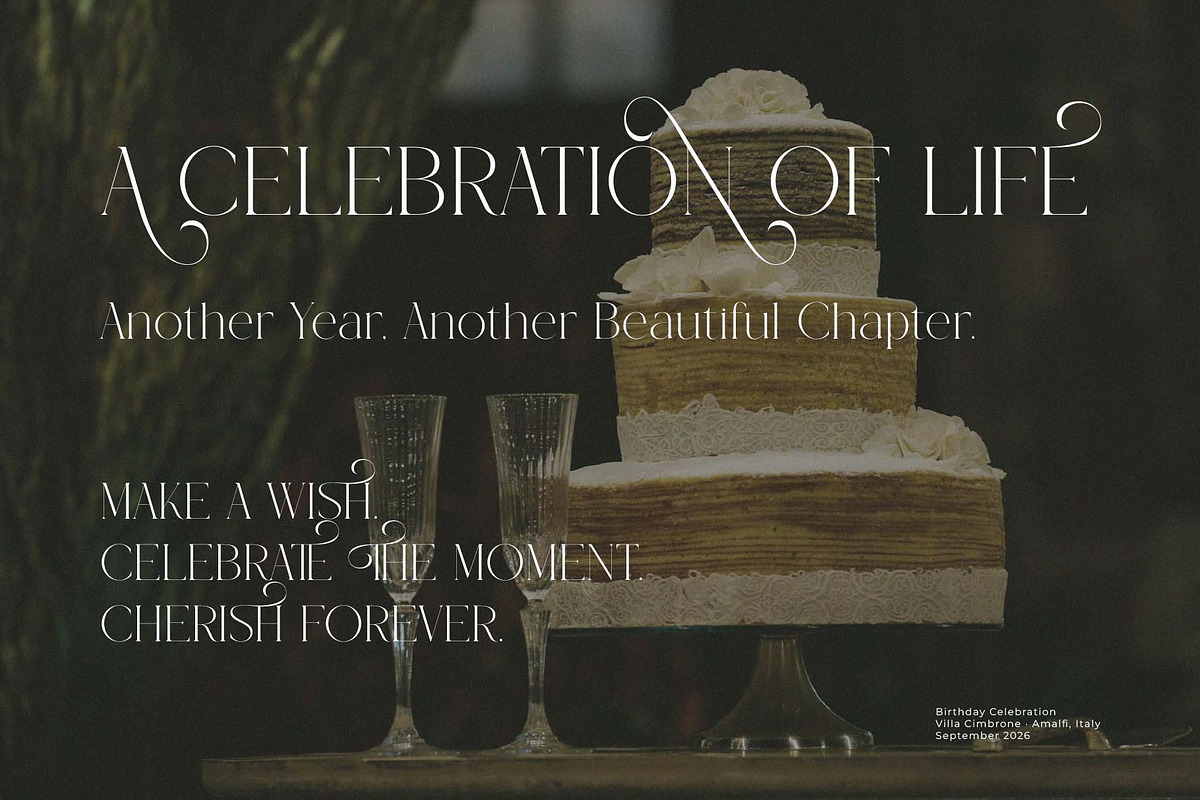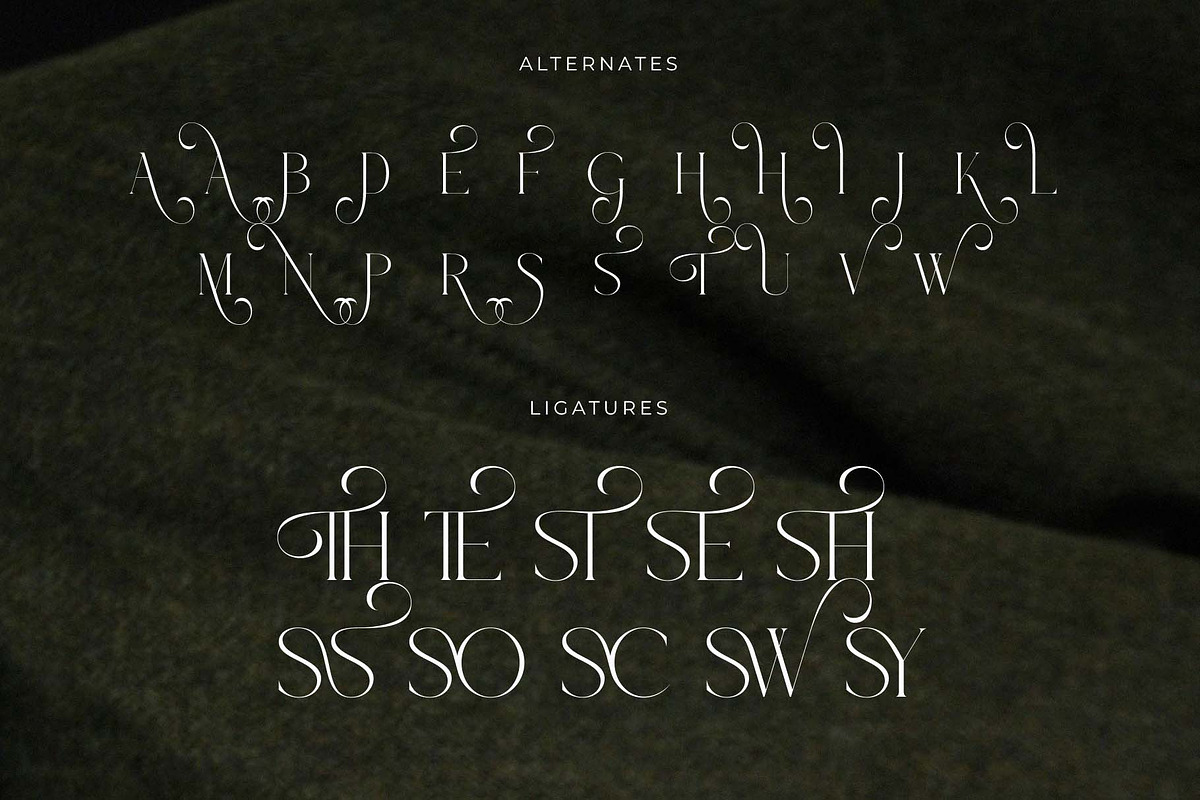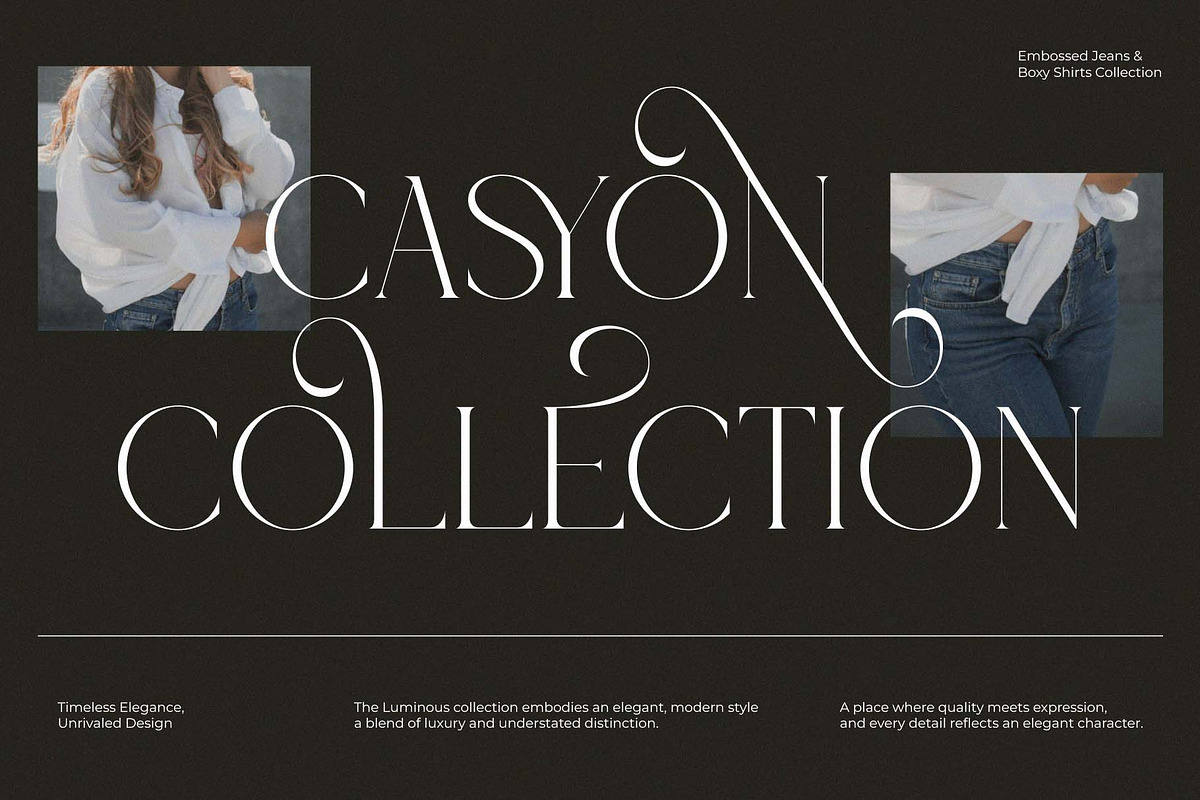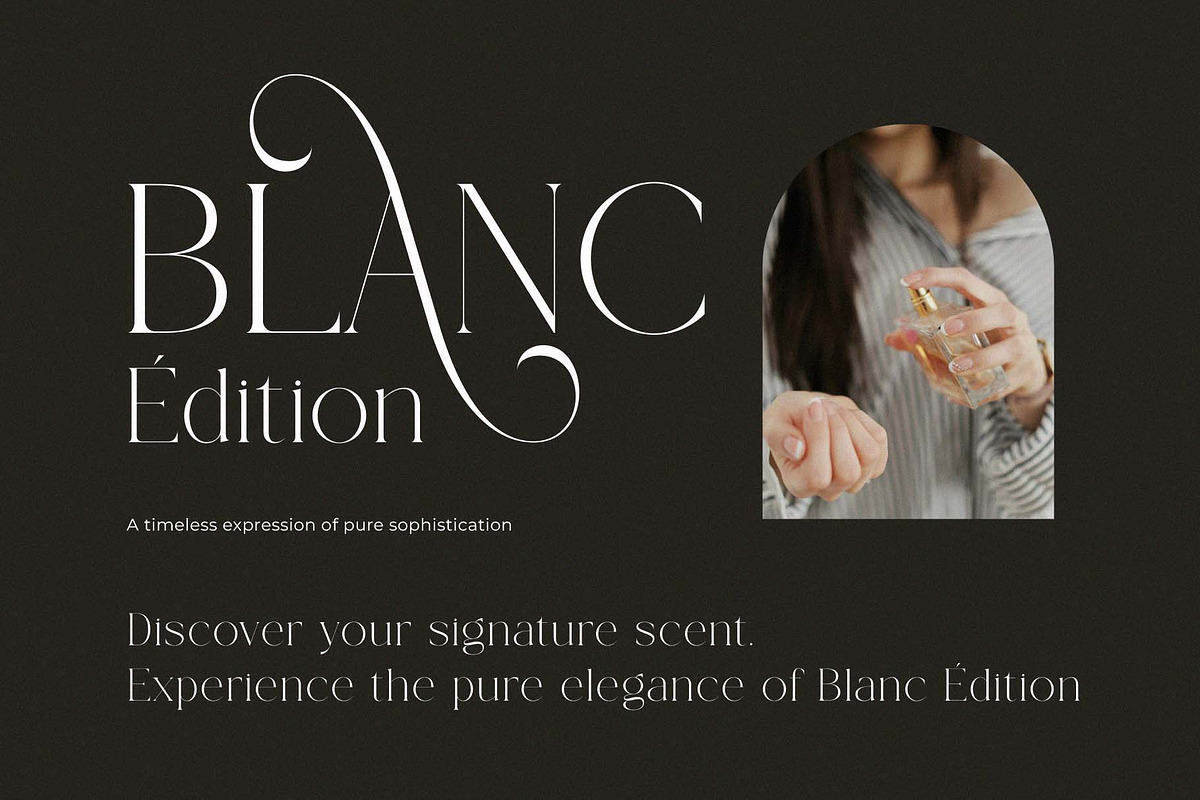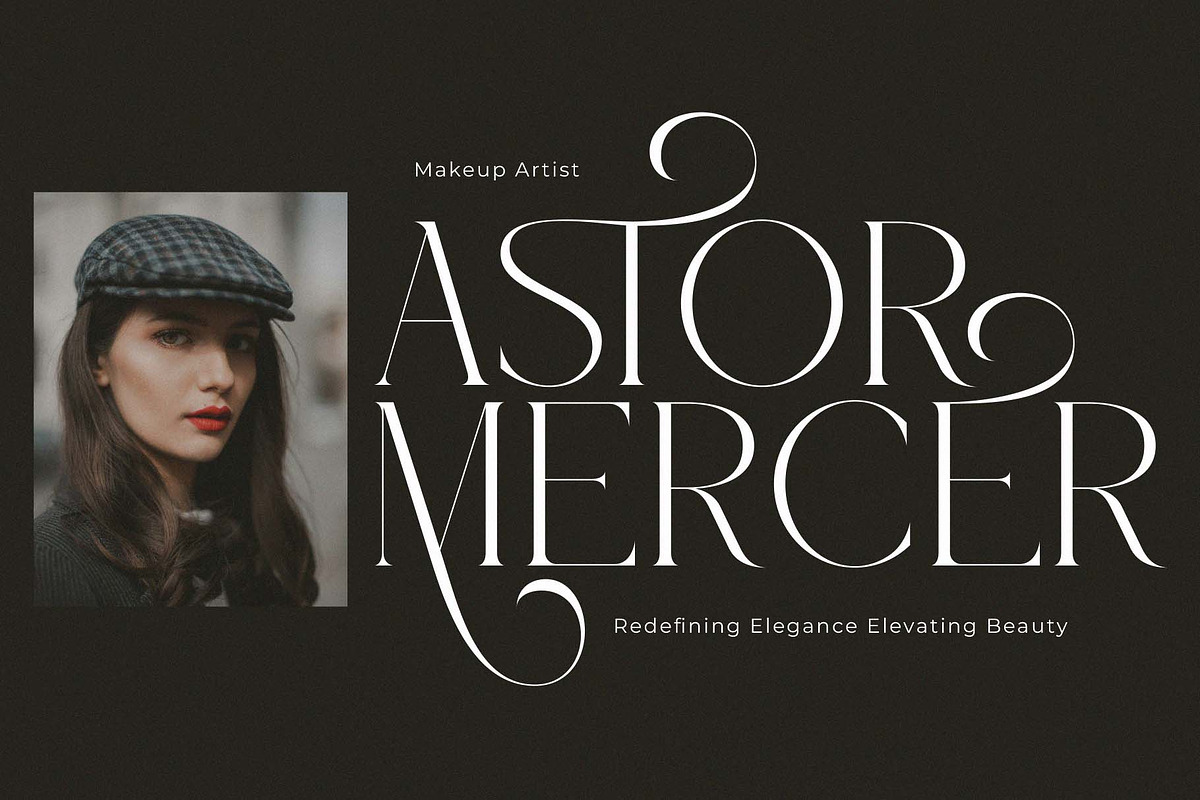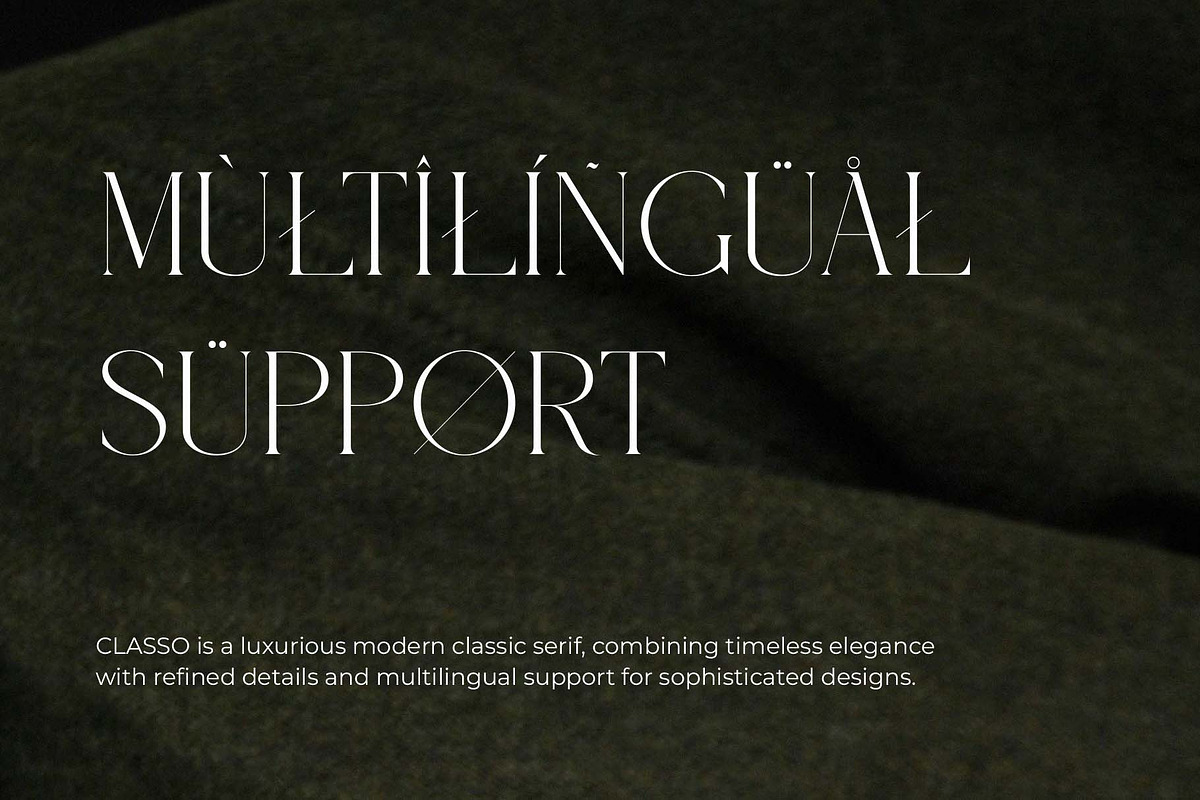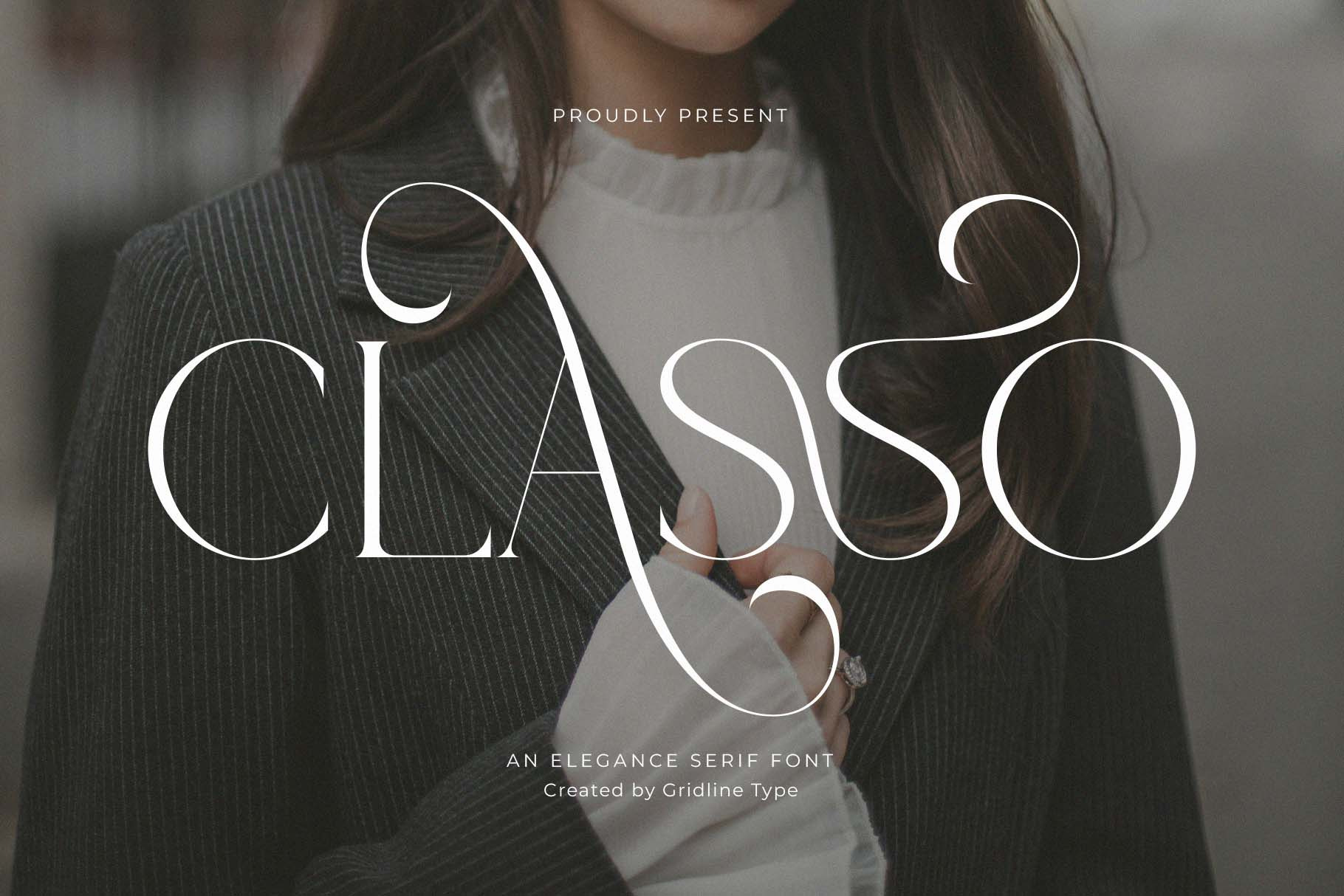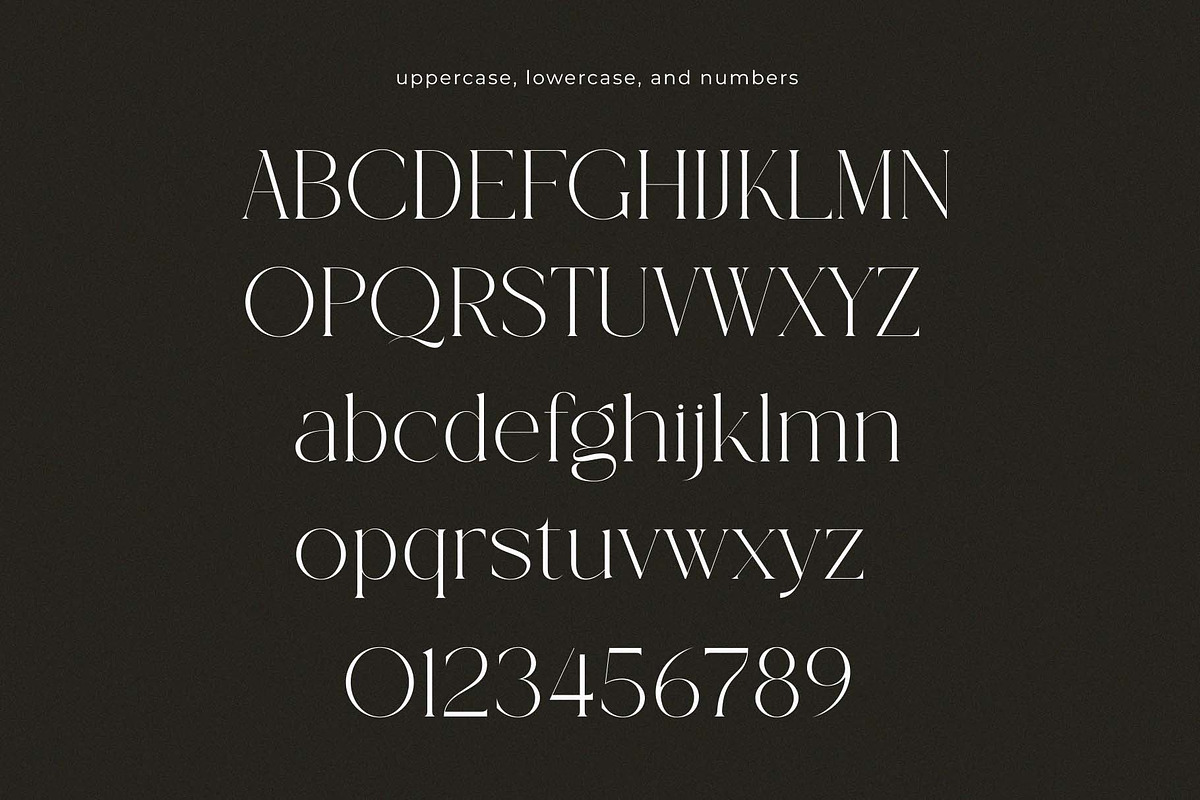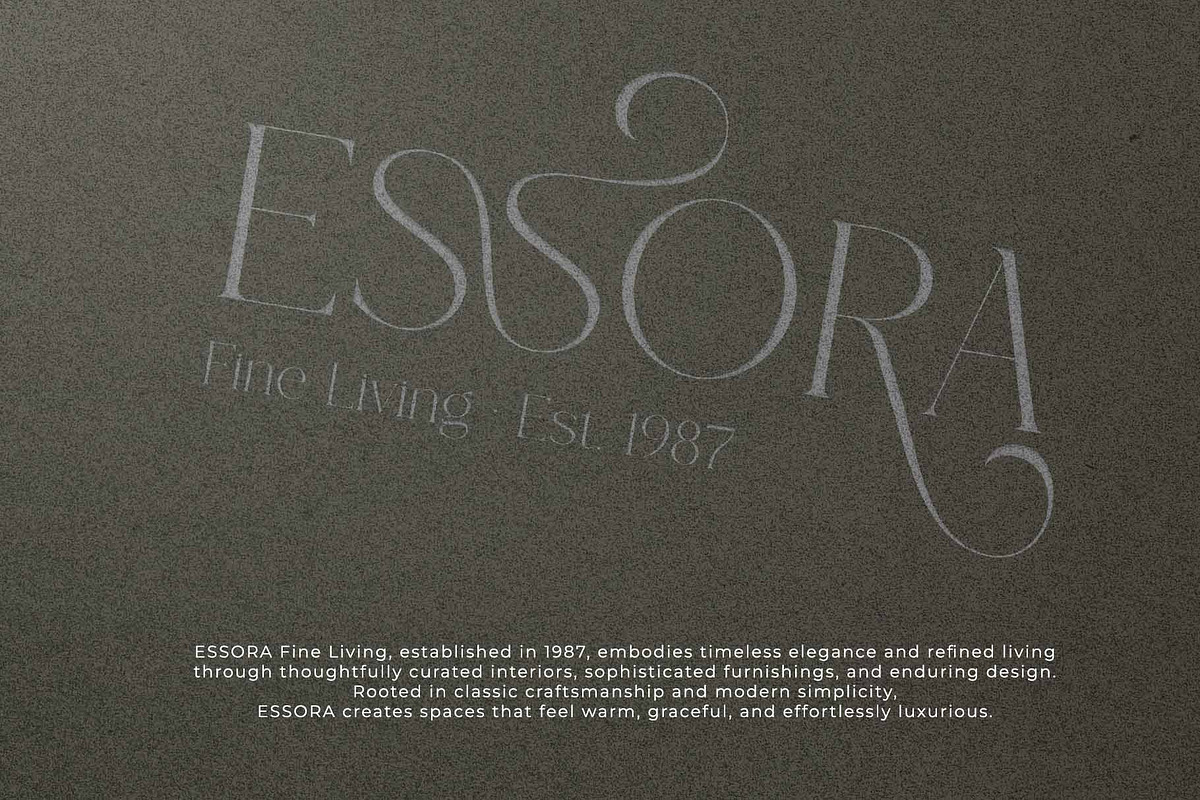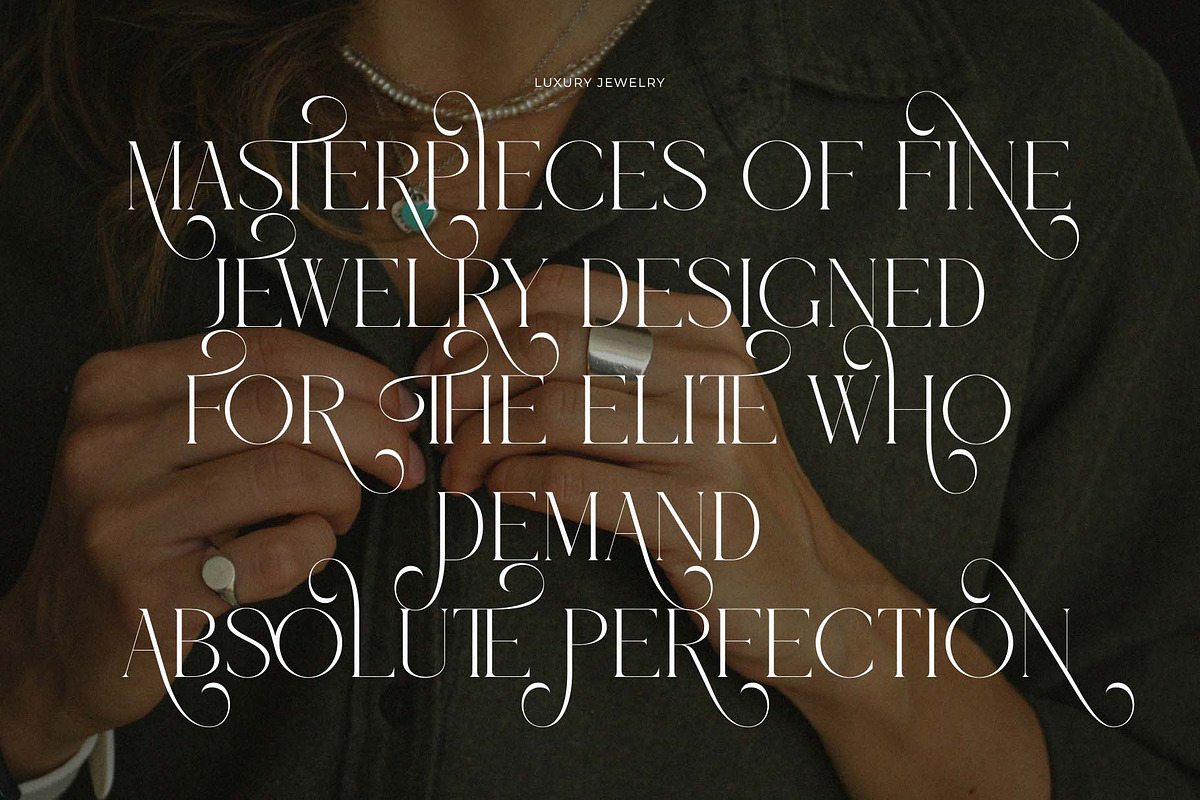
Classo - An Elegance Serif Font
Introducing Classo a refined modern serif typeface designed to bring elegance, sophistication, and timeless character to contemporary design.
With its clean proportions, graceful curves, and distinctive serif details, Classo creates a polished and luxurious impression while maintaining a modern and effortless feel.
Its carefully crafted uppercase characters are complemented by stylish alternates, giving you the freedom to create expressive and personalized typography.
Classo is an excellent choice for luxury branding, fashion, beauty, editorial design, wedding stationery, logos, packaging, magazines, social media, websites, and more.
Whether used for an elegant wordmark, a sophisticated brand identity, or refined editorial layouts, Classo adds a timeless sense of style and character to every project.
FEATURE:
* Uppercase and lowercase letters
* Multilingual Characters
* Numbers & punctuation
* ligature style end alternate (on some fonts)